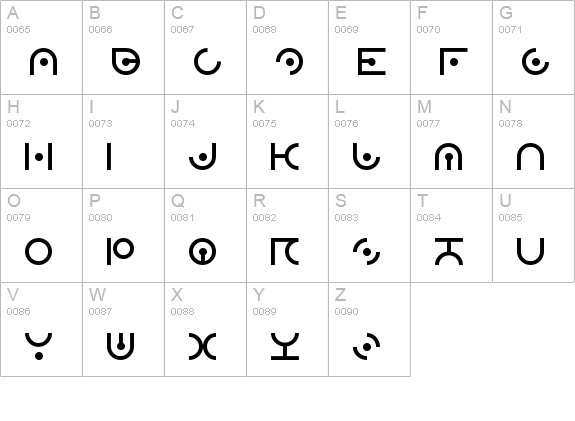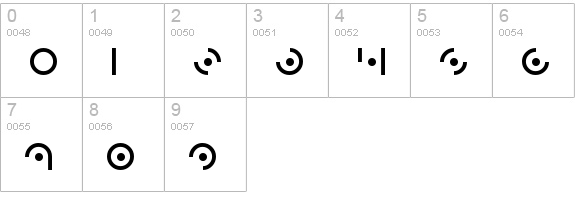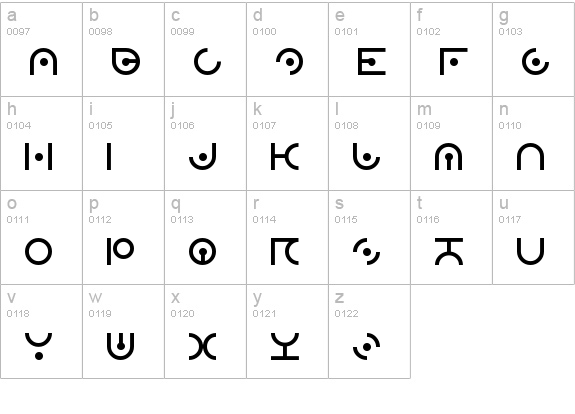
Zdyk Sagittarius Font Details
Zdyk Sagittarius is a captivating and versatile font that embodies a perfect balance of elegance and modernity. With its clean lines and stylish curves, Zdyk Sagittarius exudes a sense of sophistication and creativity that is sure to elevate any design project. This font is ideal for a wide range of applications, from branding and advertising to invitations and social media graphics. What sets Zdyk Sagittarius apart is its unique blend of classic and contemporary elements, making it a truly timeless typeface that can adapt to any design style. Whether you're looking to add a touch of elegance to your next project or make a bold statement, Zdyk Sagittarius is the perfect choice. Best of all, Zdyk Sagittarius is available for free download at FontsMarket.com. So why wait? Add this stunning font to your collection today and unleash your creativity with Zdyk Sagittarius.